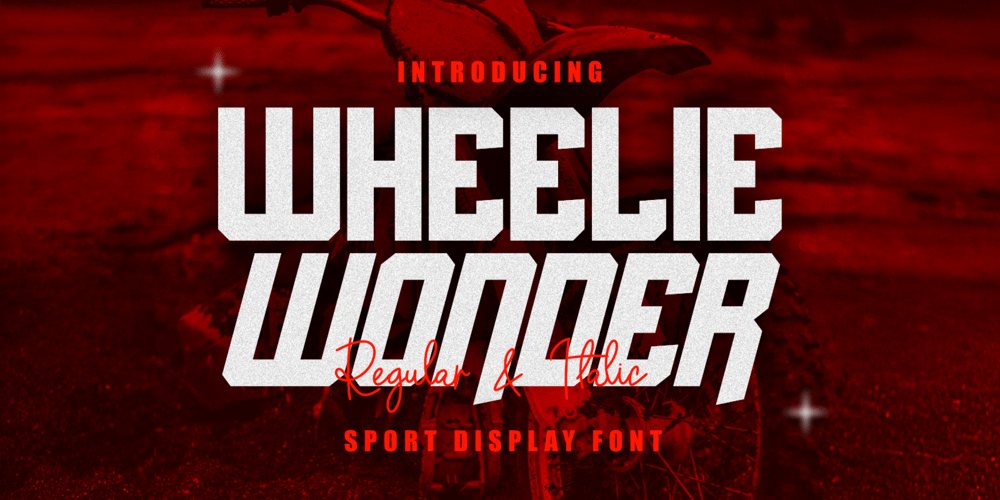
Wheelie Wonder Font Family was designed by Dani Irawan and published by GraphTypika. Wheelie Wonder contains 2 styles and family package options. Wheelie Wonder Sport Display Font is a bold, dynamic typeface designed to capture the adrenaline and motion of high-energy sports. With its sharp angles, sleek curves, and a touch of retro flair, it evokes the thrill of speed, balance, and competition—perfect for branding, athletic apparel, event posters, or any project demanding a fearless, action-oriented aesthetic. The font’s playful yet assertive letterforms mimic the gravity-defying stance of a wheelie, making it ideal for headlines, logos, or merchandise that aim to stand out with unapologetic energy. Whether promoting extreme sports, fitness gear, or urban culture, Wheelie Wonder commands attention while balancing grit and modernity.